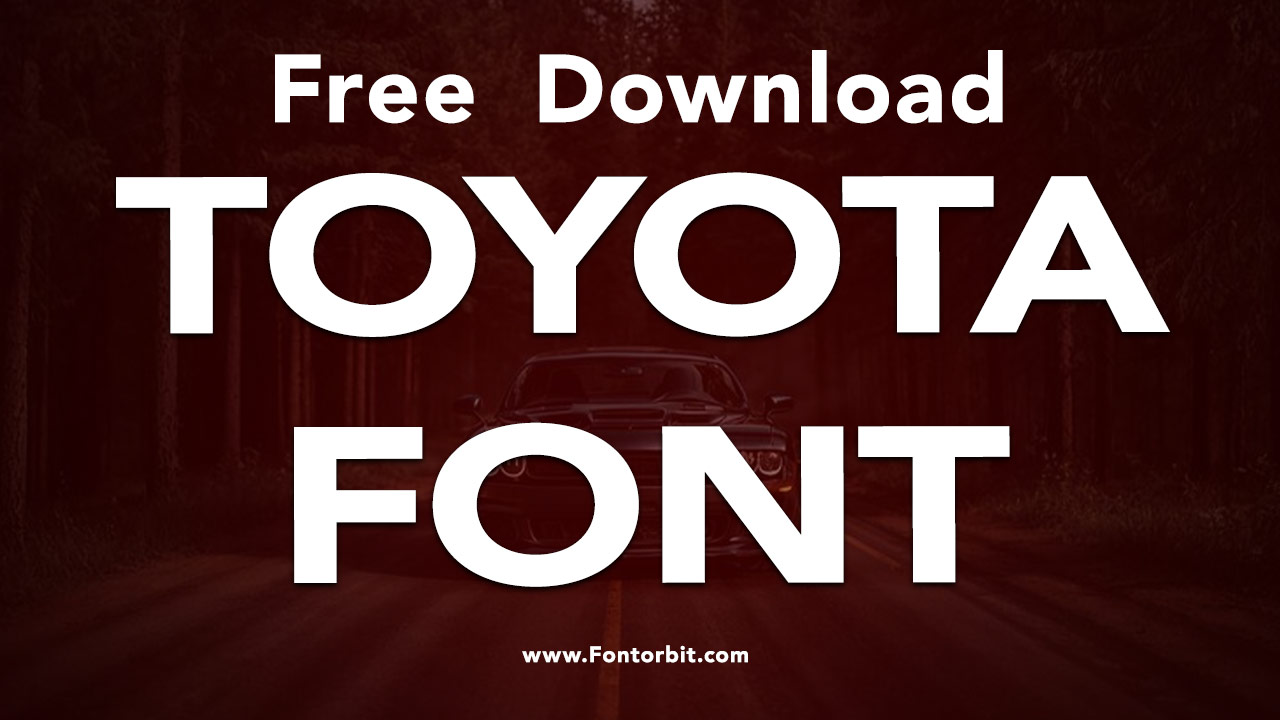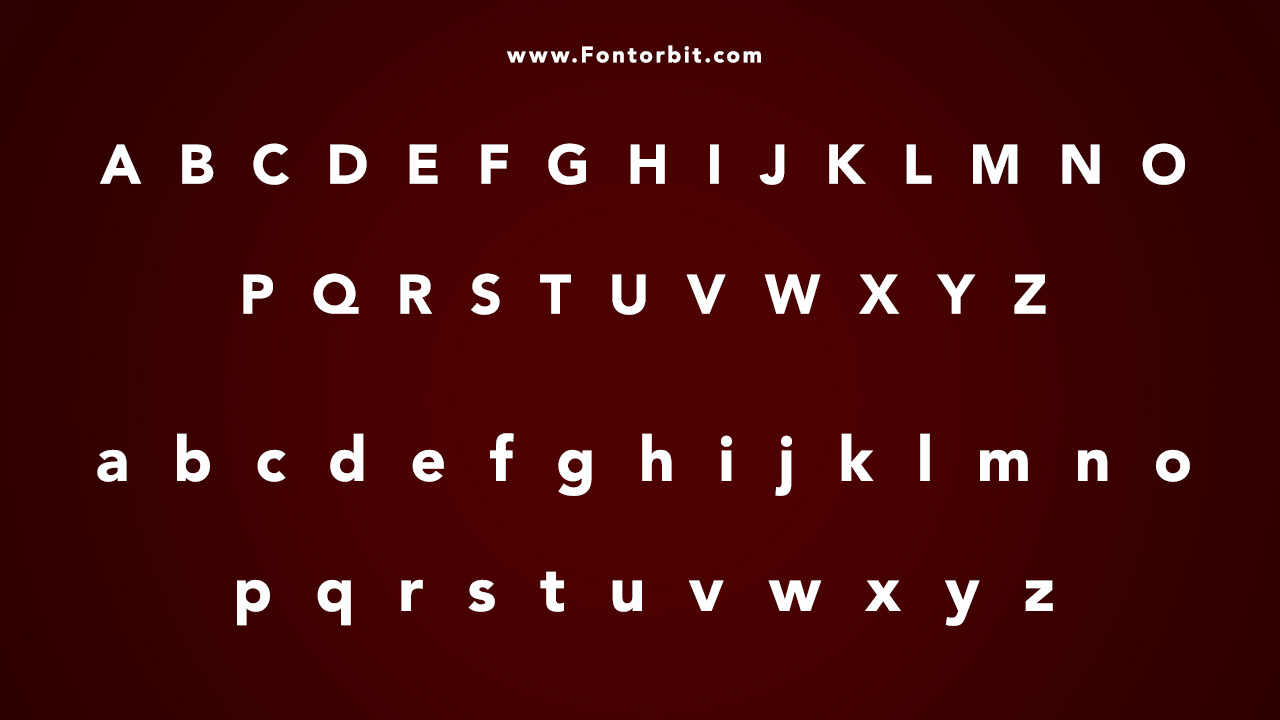
Toyota widely recognizes this font as part of its brand identity. Specifically designed for the global automotive giant, this sleek and professional typeface reflects the company’s innovation and reliability.
The font, first published alongside Toyota’s rebranding efforts, has garnered attention for its clean, modern aesthetics. The sans-serif font family is widely known for its readability and simplicity.
The Toyota font family features variations designed to meet different branding needs. Here are some key variants of the Toyota font family:
Toyota Regular
These fonts provide versatility for a range of design applications, offering consistency across digital and print platforms.
Notable Uses Of Toyota Font
The Toyota font is commonly used for branding and advertising materials, including:
- Toyota car advertisements
- Corporate brochures and marketing collateral
- Website and mobile interface elements
- Dealership signage and packaging
- User manuals and instructional booklets
This font’s clarity and modern appeal make it a go-to choice for professional and sleek presentations, particularly in the automotive industry.
Use the Toyota font in various contexts where clarity, professionalism, and brand consistency are essential. It works best in corporate documents, presentations, websites, and advertisements, making it ideal for:
- Automotive industry branding
- Corporate identity materials
- Digital interfaces (web and mobile)
- Marketing campaigns
- User manuals and instructional content
The Toyota font represents more than just text—it is part of the brand’s visual identity, symbolizing the precision and innovation associated with Toyota vehicles. Whether you’re creating branding materials or just need a professional and clean typeface, the Toyota font provides a reliable and versatile option.
Its sleek, modern design reflects Toyota’s brand identity.